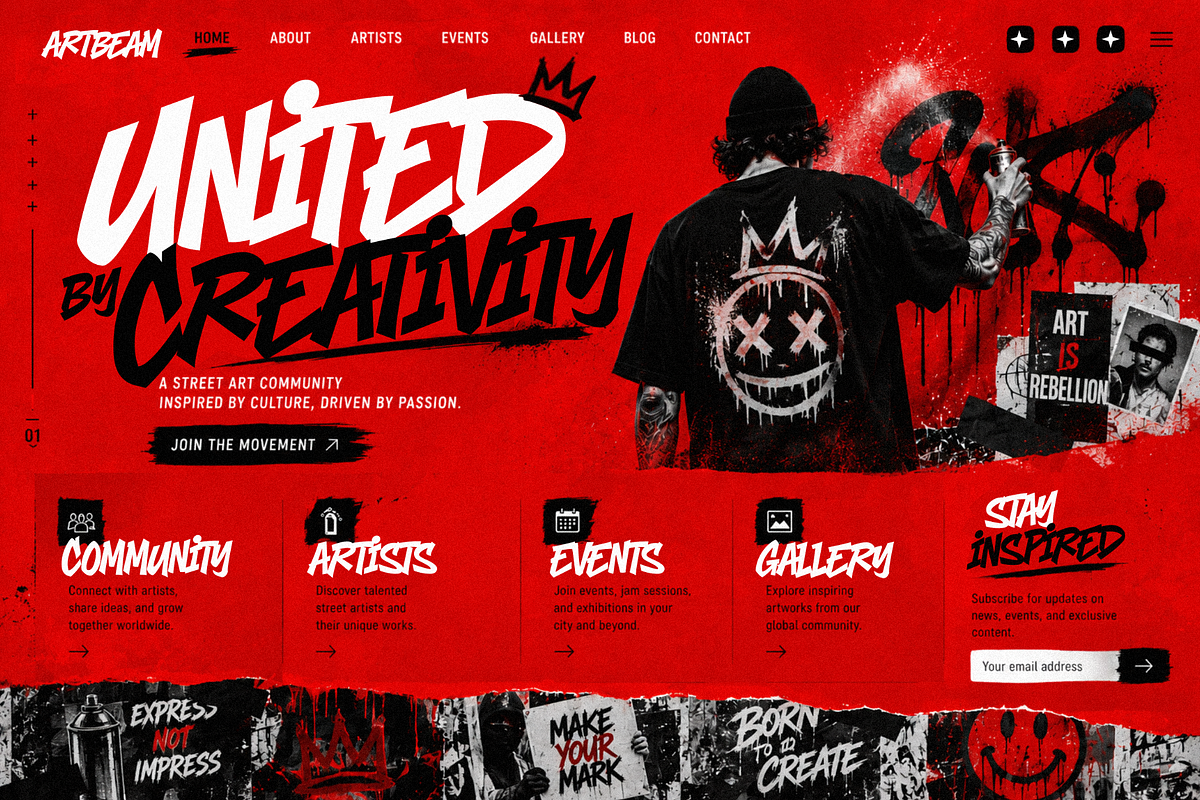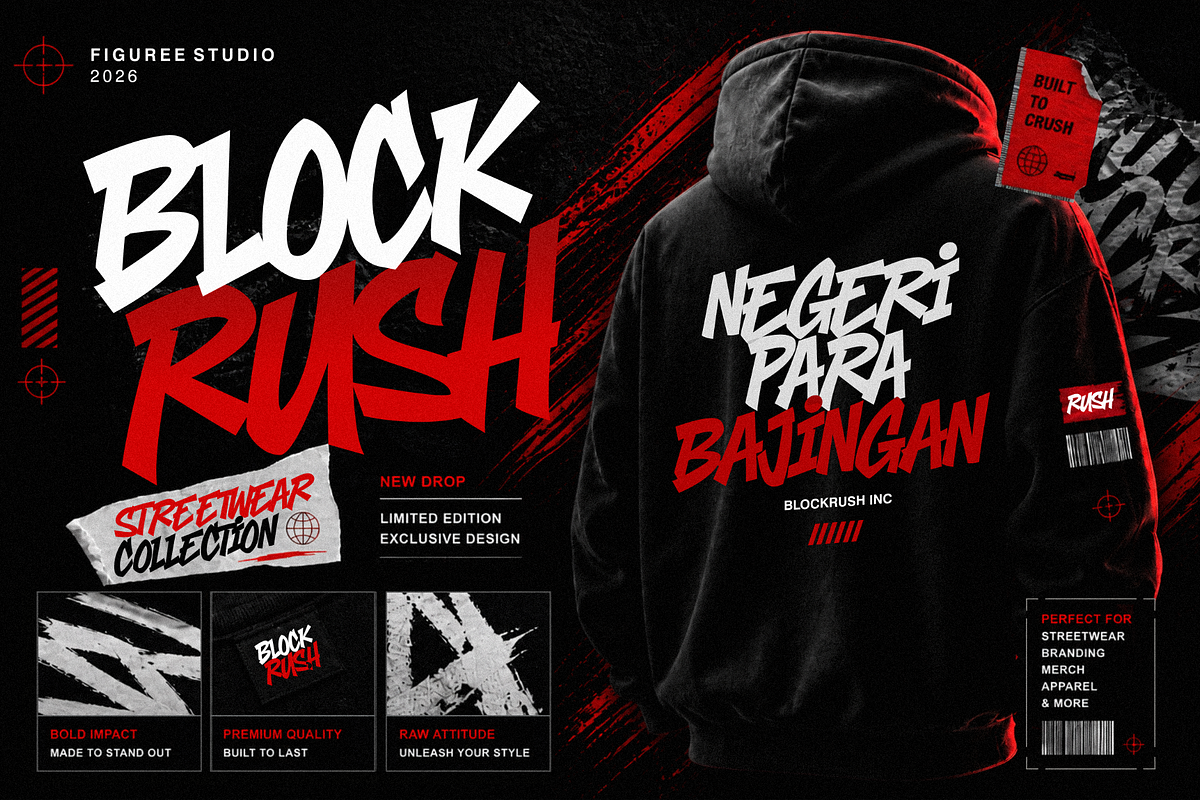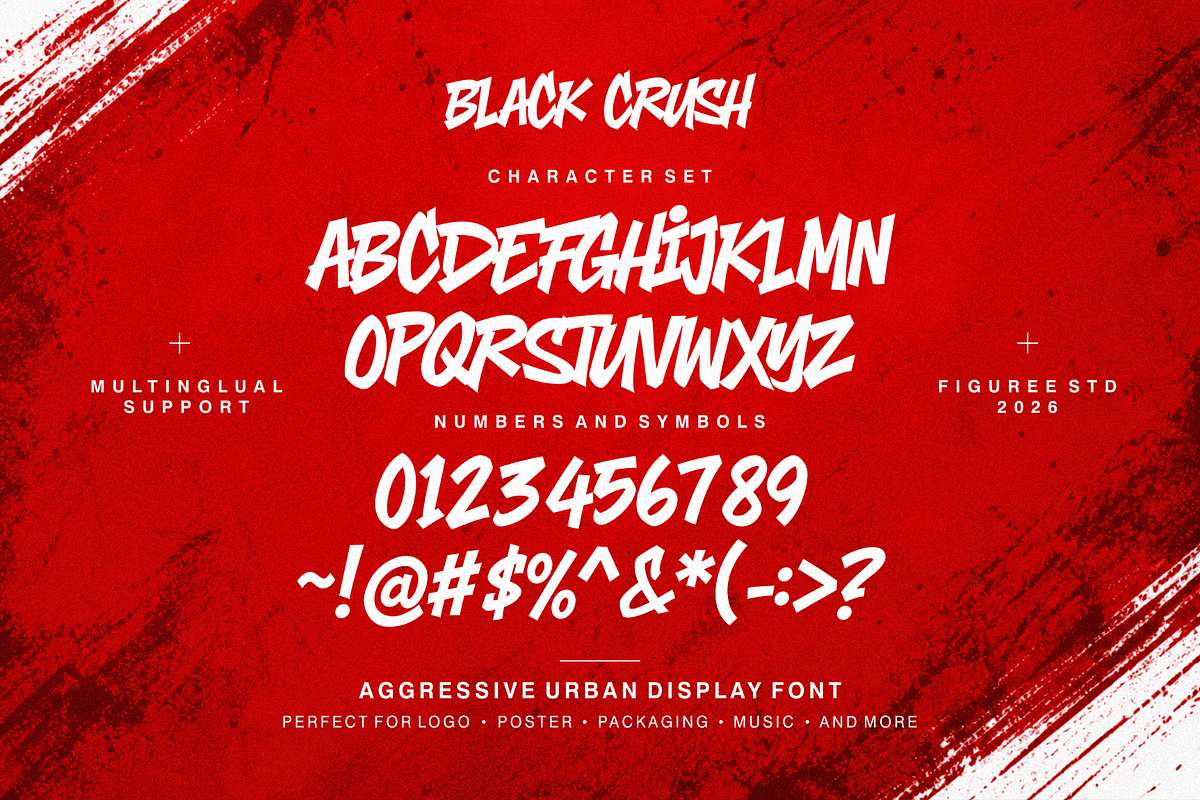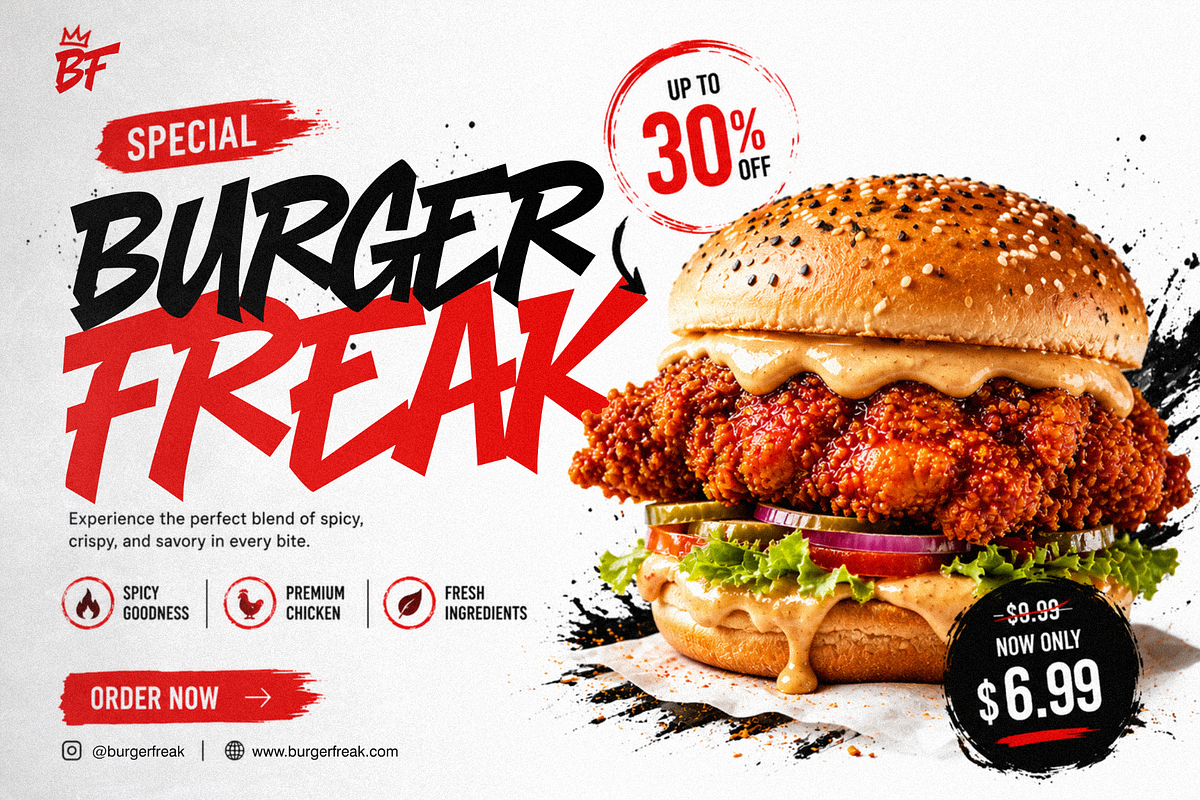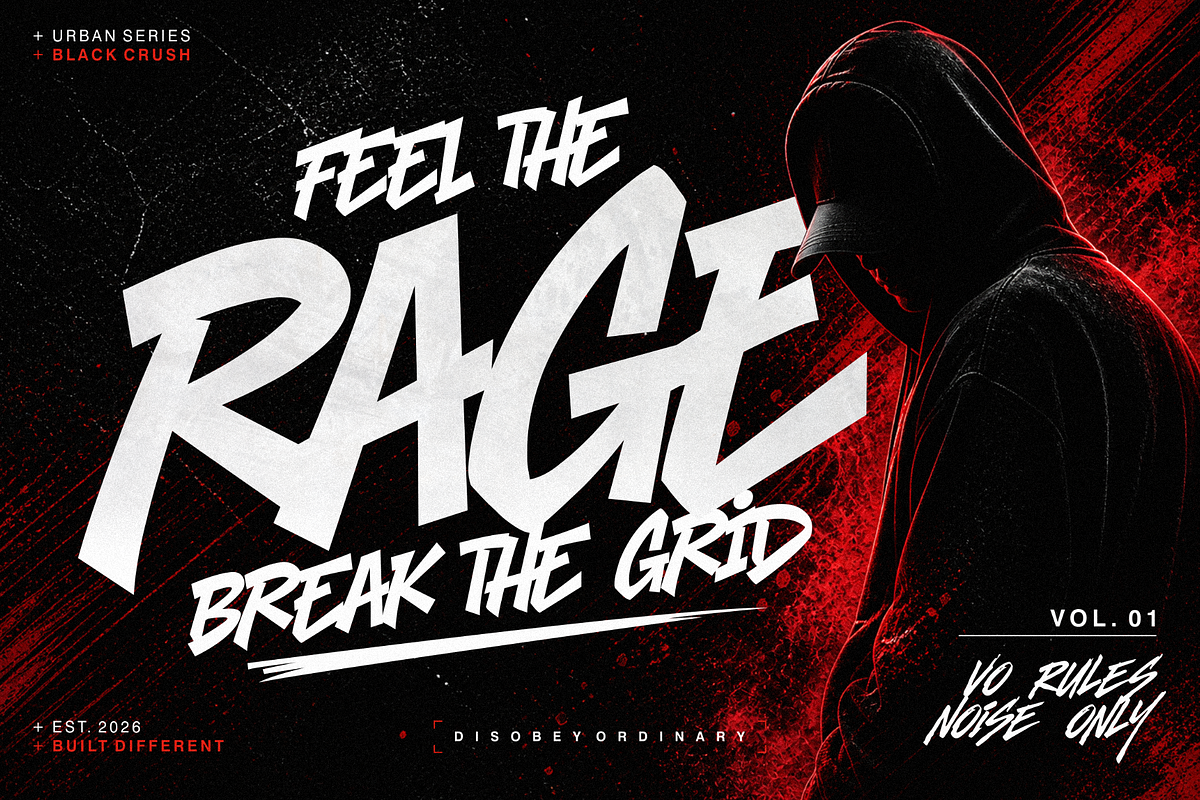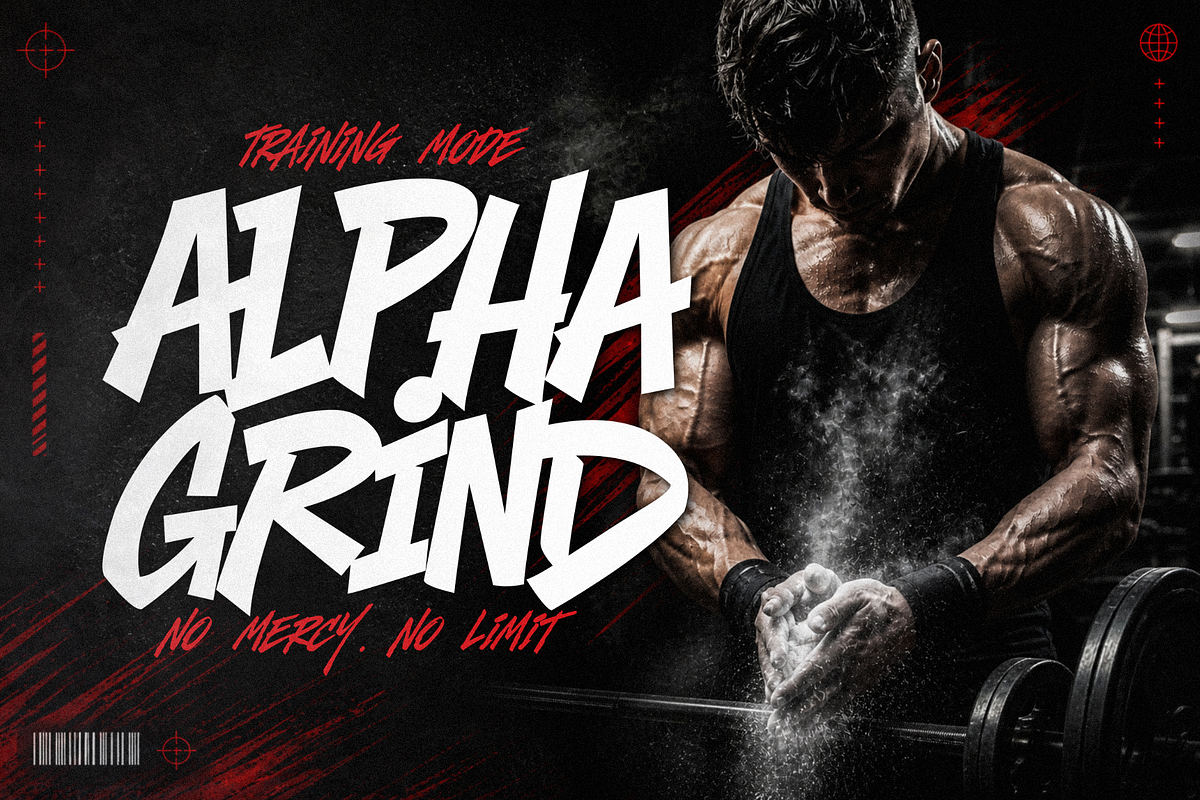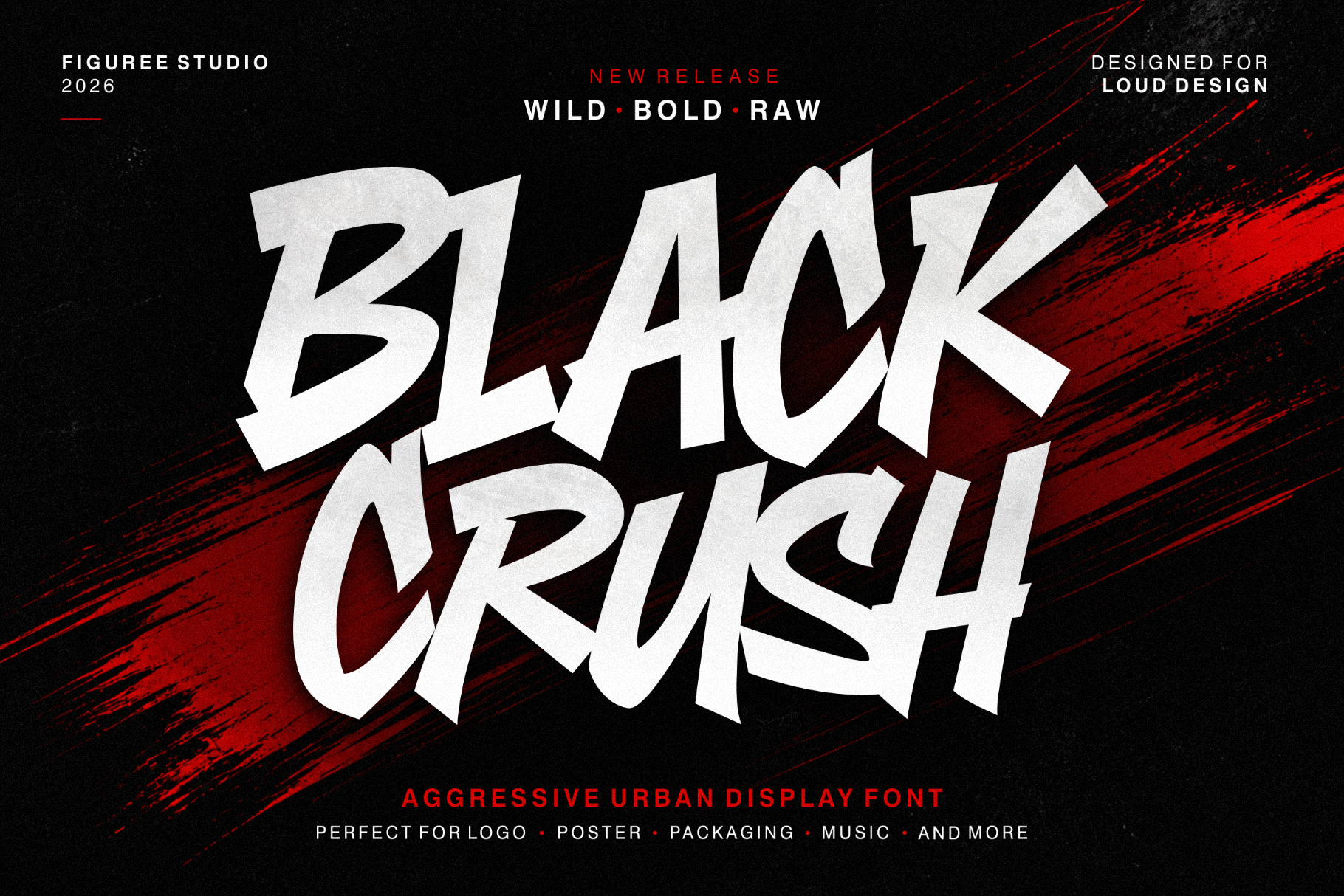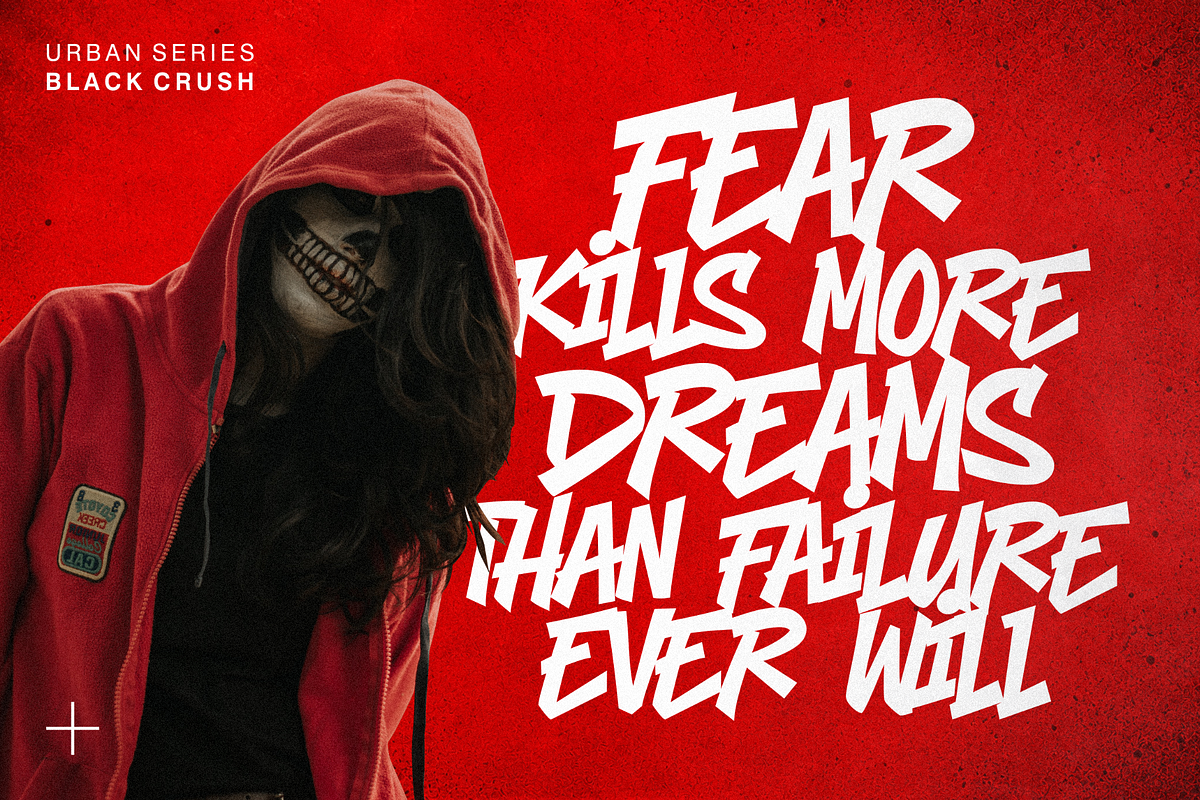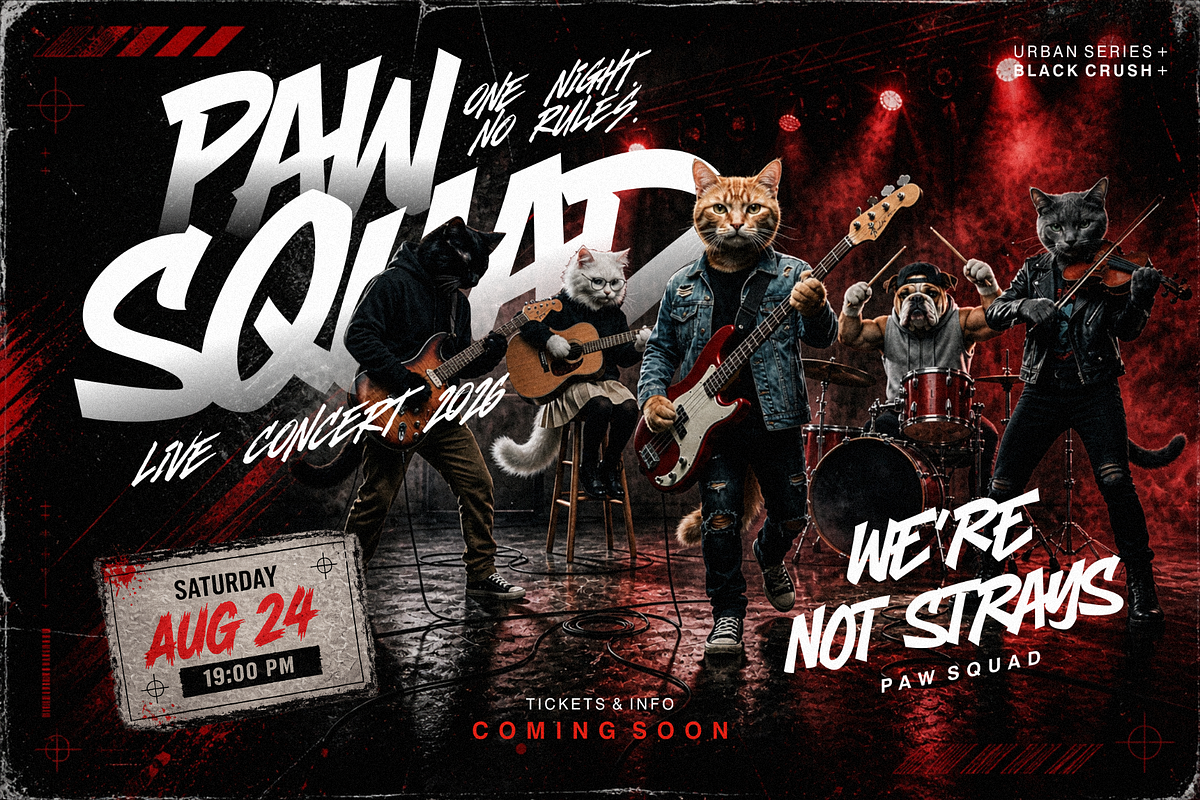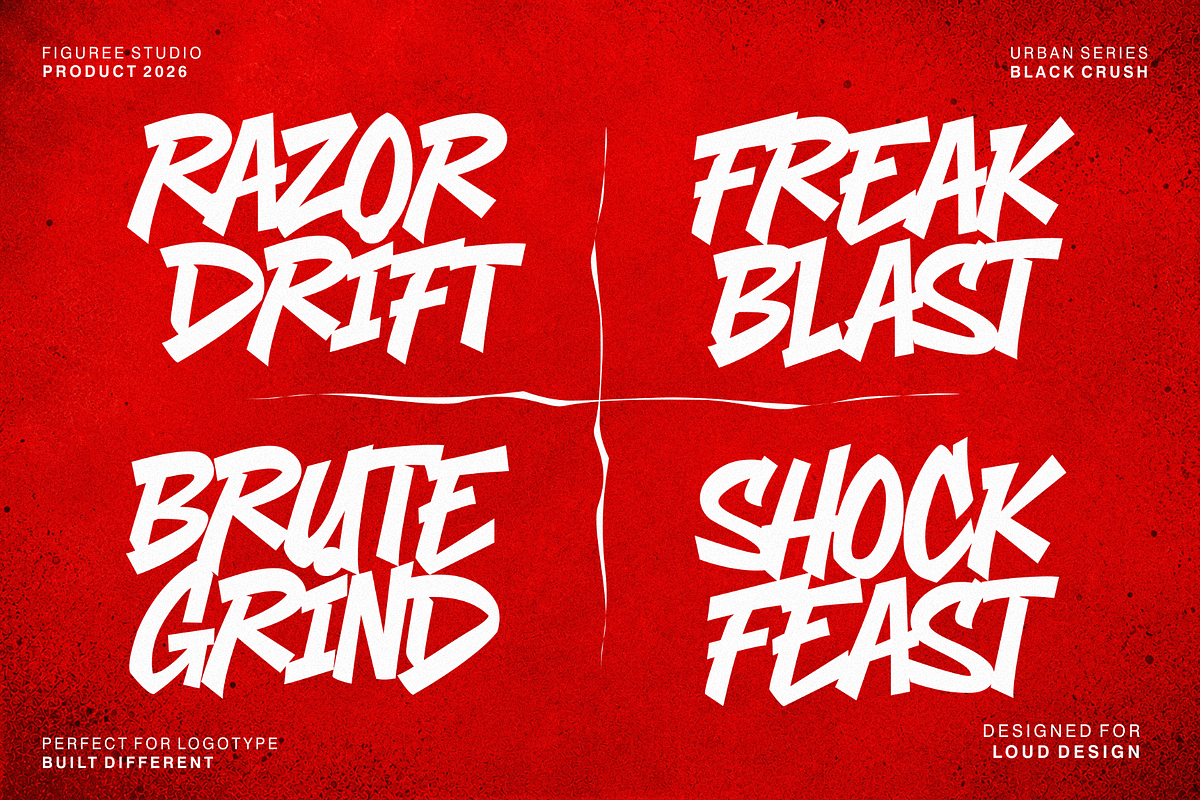
Black Crush – Aggressive Font
Introducing Black Crush – Aggressive Urban Display Font, a bold and energetic typeface created for projects that demand strong visual impact. Built with sharp character shapes, dynamic proportions, and a raw urban attitude, this font delivers high visibility across digital and print layouts.
Black Crush is designed to work perfectly for posters, video thumbnails, music artwork, esports graphics, event promotions, gaming titles, banners, social media content, and large display typography. Its aggressive style instantly creates tension, movement, and intensity inside a composition without losing readability.
The combination of uppercase and lowercase characters gives designers more flexibility when building layouts. You can create powerful headlines, layered typography, or energetic compositions while maintaining a consistent visual identity. Every letter is crafted to feel compact, heavy, and expressive, making this font highly effective for attention-grabbing designs. Unlike generic display fonts, Black Crush carries a strong urban-inspired structure that feels active and loud. The irregular curves and bold forms help create a sense of movement, making it suitable for fast-paced visuals and high-energy creative projects.
- Allcaps Characters for flexible typography layouts.
- Support Multilingual for wider language compatibility.
- Aggressive Urban Display Style with bold visual presence.
- Strong Readability even at large display sizes.
- Perfect for Posters & Headlines requiring impactful typography.
- Ideal for Digital and Print Projects, including thumbnails, banners, and graphics.
Why Designers Love It Designers use Black Crush because it creates instant visual intensity. The bold structure helps text dominate a layout without requiring excessive effects or decoration. This makes the font highly effective for projects where typography becomes the main focal point.
The mix of uppercase and lowercase characters also allows for more dynamic compositions. Designers can experiment with scale, rhythm, and hierarchy while still maintaining consistency across the design. Its multilingual support adds flexibility for international projects, while the included file formats make integration simple across web and desktop environments. Whether used for video content, event graphics, streaming visuals, or promotional material, Black Crush delivers a strong and energetic typographic presence.
If you need an aggressive urban display font that delivers strong visibility and bold character, Black Crush is ready to push your typography forward. Its energetic shapes, heavy structure, and urban-inspired style make it suitable for high-impact visual projects that require attention at first glance. Add it to your collection and create typography that feels loud, dynamic, and direct.